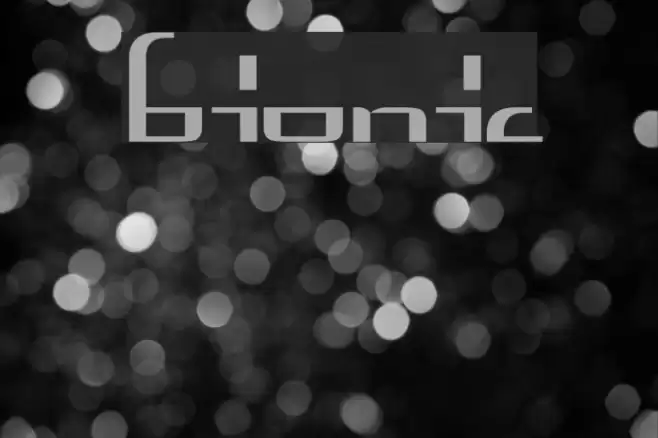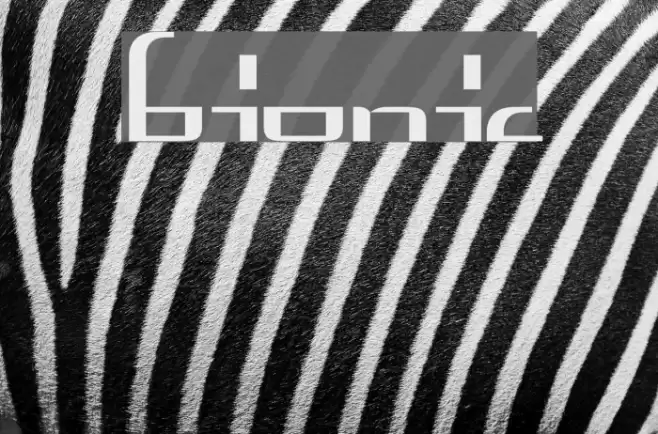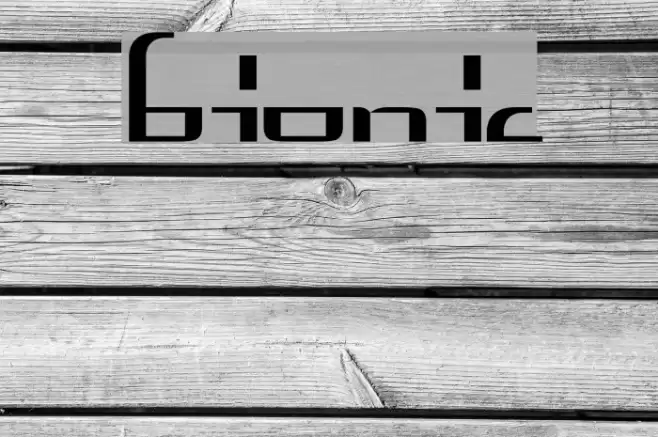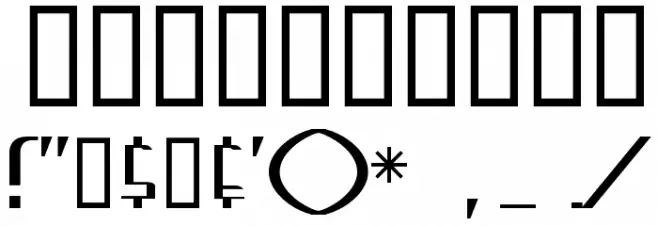
Bionic Font
Bionic Description
This font features a futuristic and geometric design, characterized by its sharp angles and clean lines. The uppercase and lowercase letters share a consistent height, creating a uniform appearance. The characters are constructed with a mix of straight and curved lines, giving them a sleek and modern look. The numbers and special characters maintain the same geometric style, ensuring a cohesive design throughout. The font's unique style makes it stand out, with a distinct technological and avant-garde feel.
A futuristic, geometric font with sharp angles and clean lines from Modern fonts.